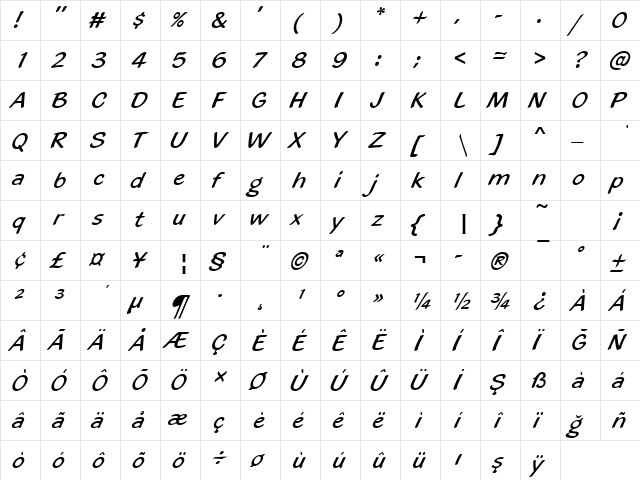
00400 Regular
00400 takes a measured approach to typography — its balanced proportions and neutral character make it a reliable workhorse for both digital and print work.